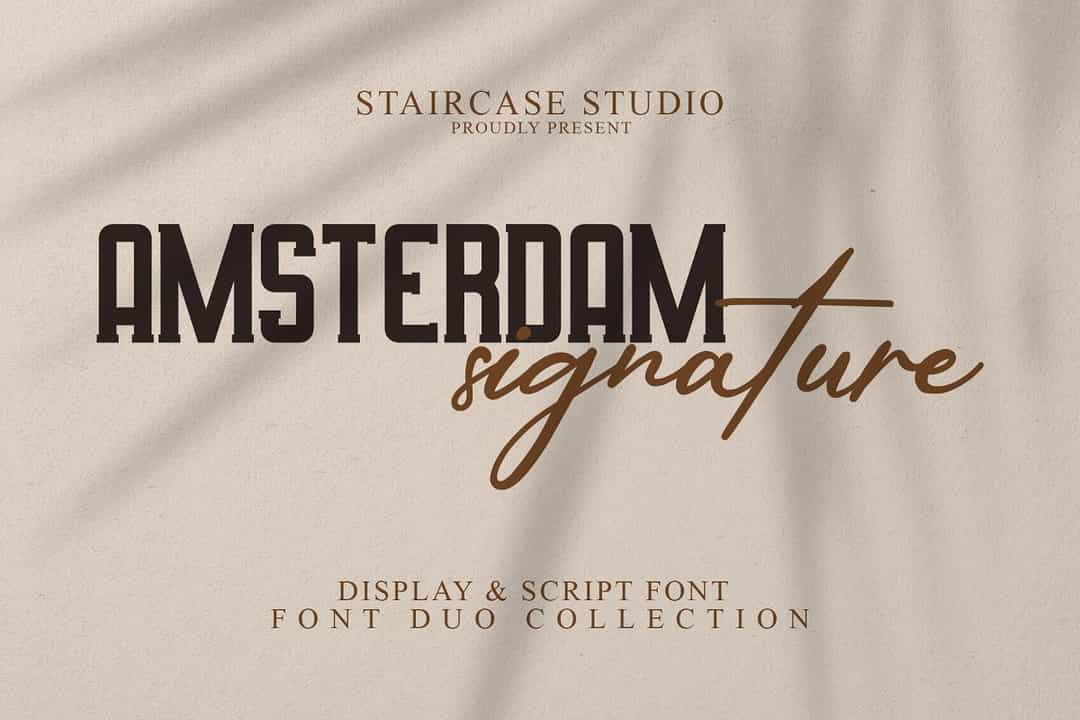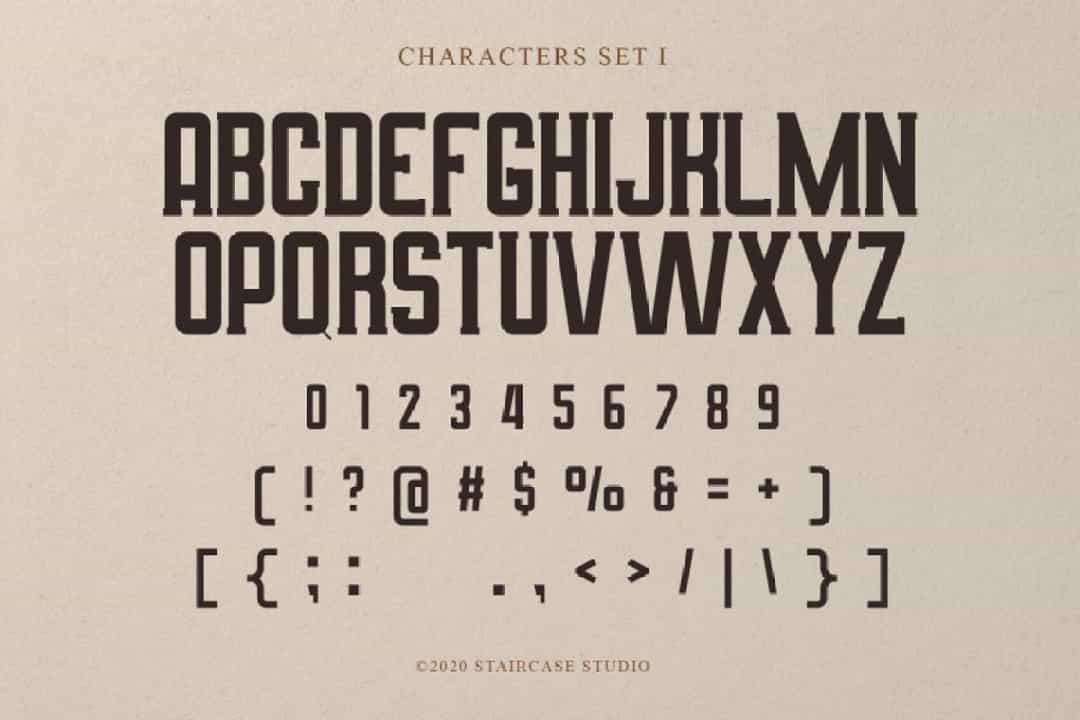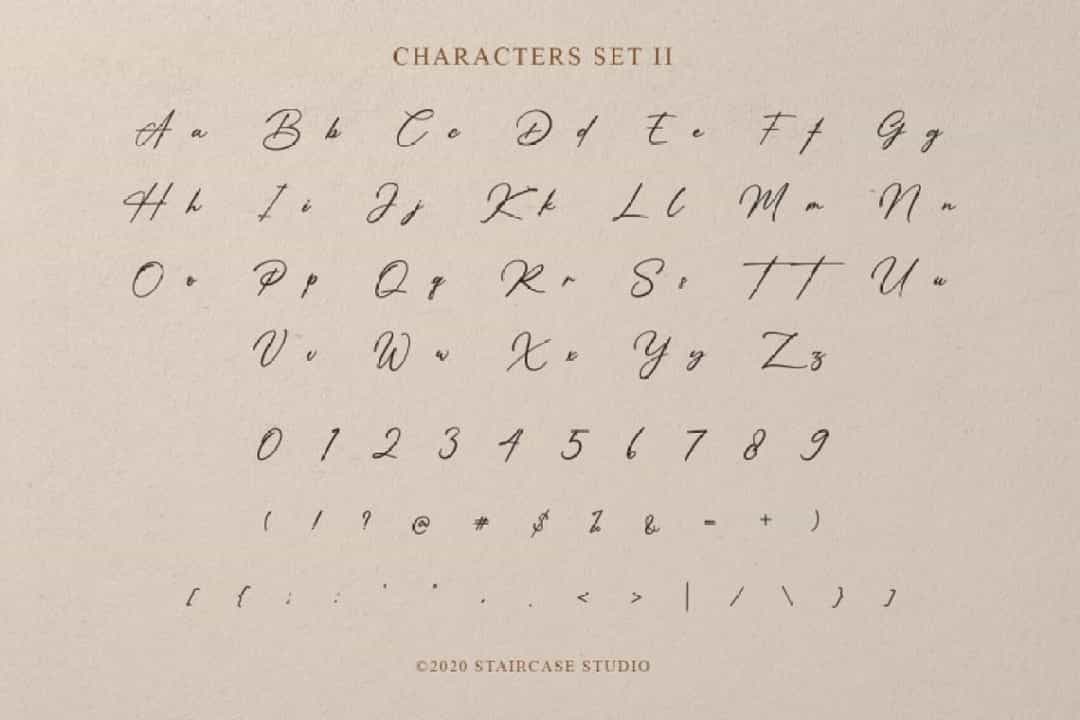
Discover Amsterdam Signature Font, part of the Handwritten Display collection—a versatile and unique font perfect for adding a personal touch to your projects. Download it for free and enjoy crafting designs with style, from invitations to social media posts. This font is available exclusively for personal use, giving you the freedom to create without limits. Unlock your creativity with Amsterdam Signature Font today!
Amsterdam Signature Font Duo, Display and Script Typeface provides an assortment of numbers and letters perfect for use in various projects, including logotype design, branding design, digital lettering arts T-Shirt/Apparel poster Magazine Signage signage Advertising design as well as any other requirement for signage designs and any design specifications.